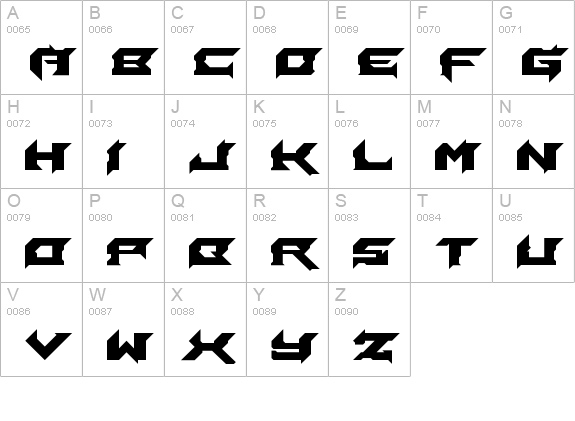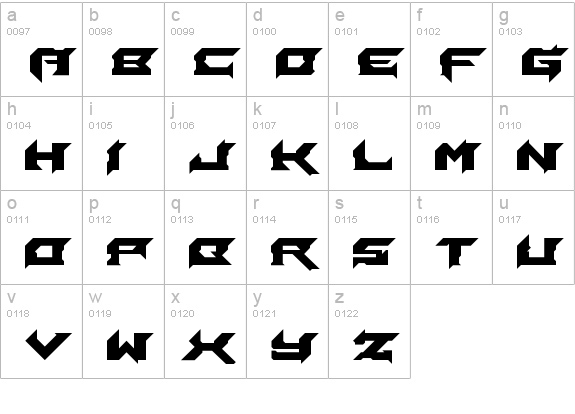
Introducing Laceration font, a striking and edgy typeface that is sure to make a bold statement in your projects. With its sharp angles and jagged lines, Laceration exudes a sense of modernity and attitude. This versatile font is perfect for a wide range of design applications, from posters and logos to branding and packaging. What makes Laceration font even more appealing is that it is completely free to download at FontsMarket.com. Yes, you read that right – this unique and eye-catching font can be yours at no cost. So why wait? Add Laceration font to your collection today and let your creativity soar!